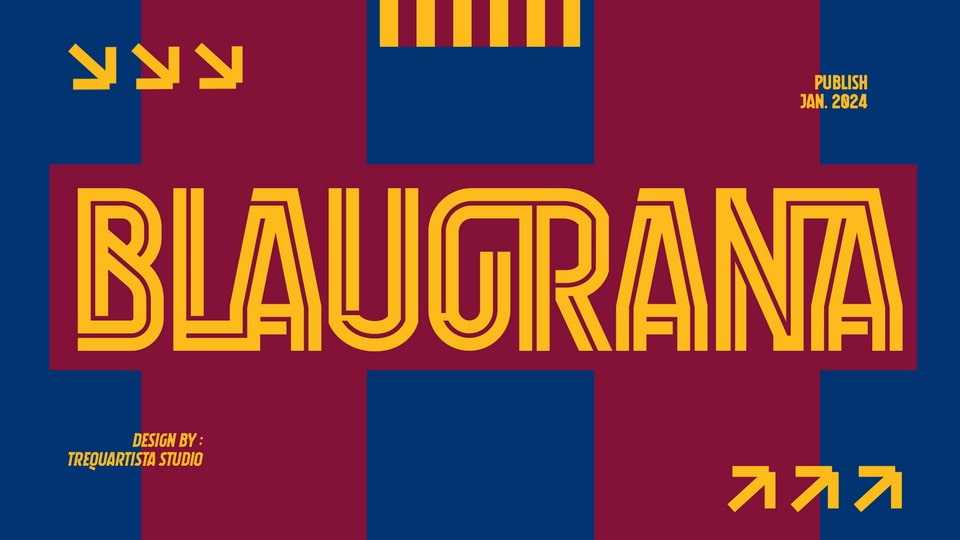
Download Blaugrana font, a condensed sport typeface. Blaugrana font is tall, vibrant with sharp forms and competitive appearance, therefore excellent to use for headers and so on.
Designer: Studio Trequartista